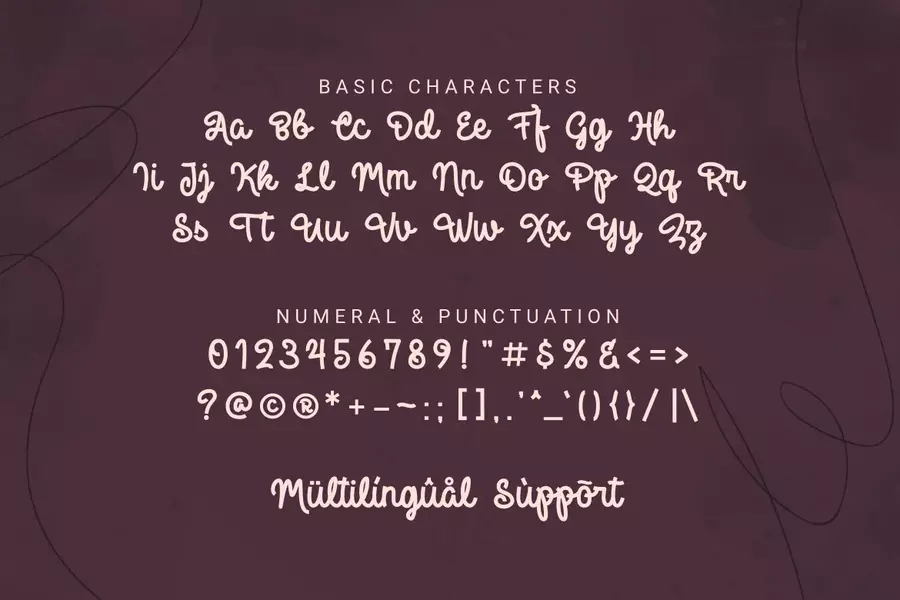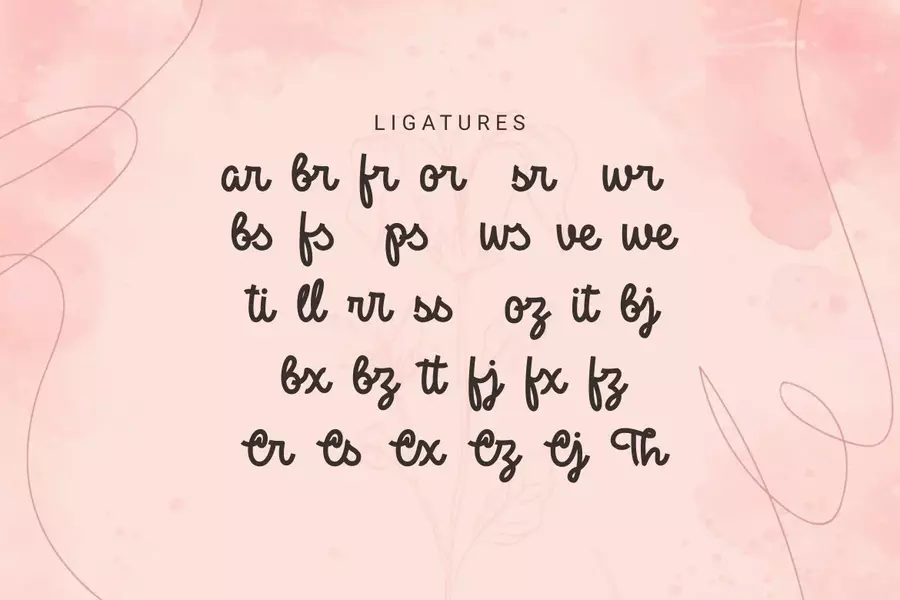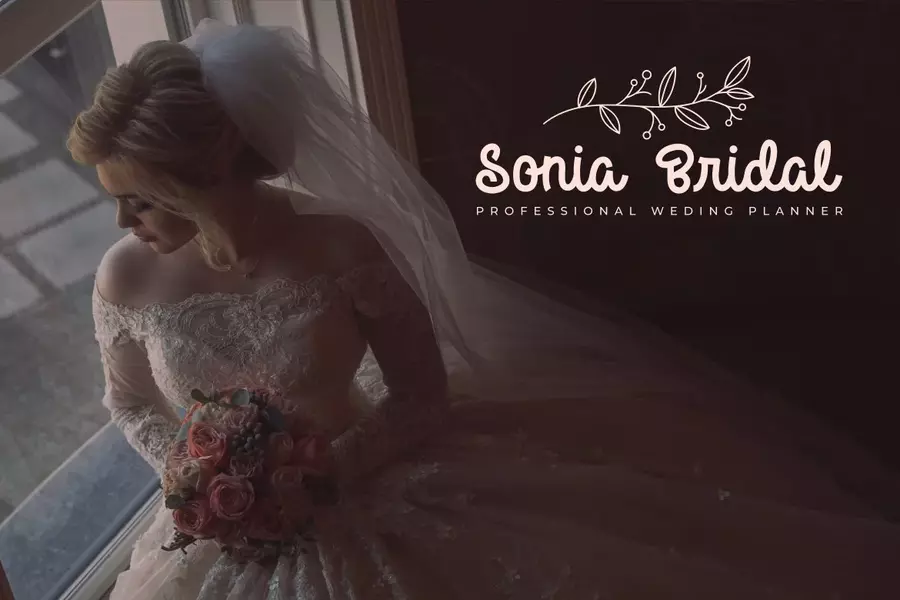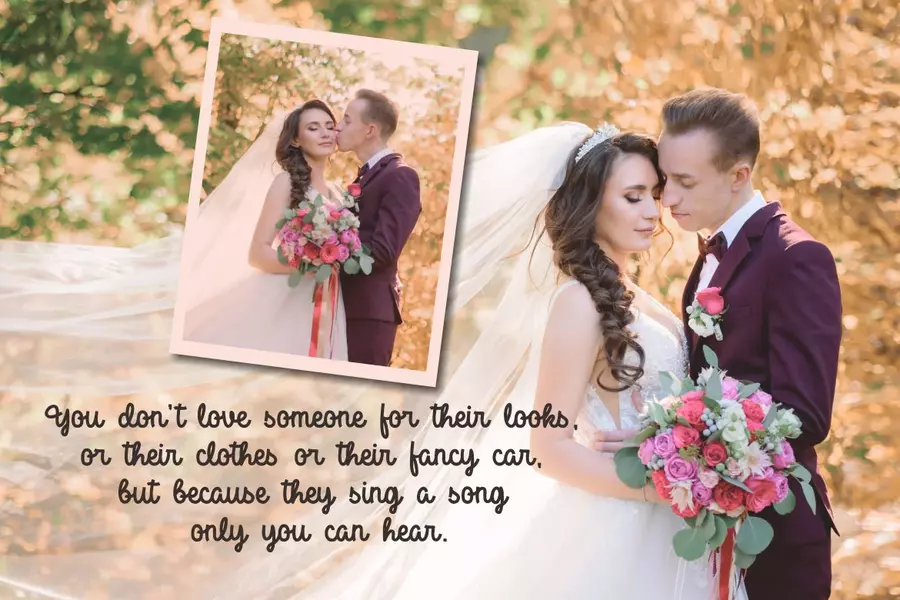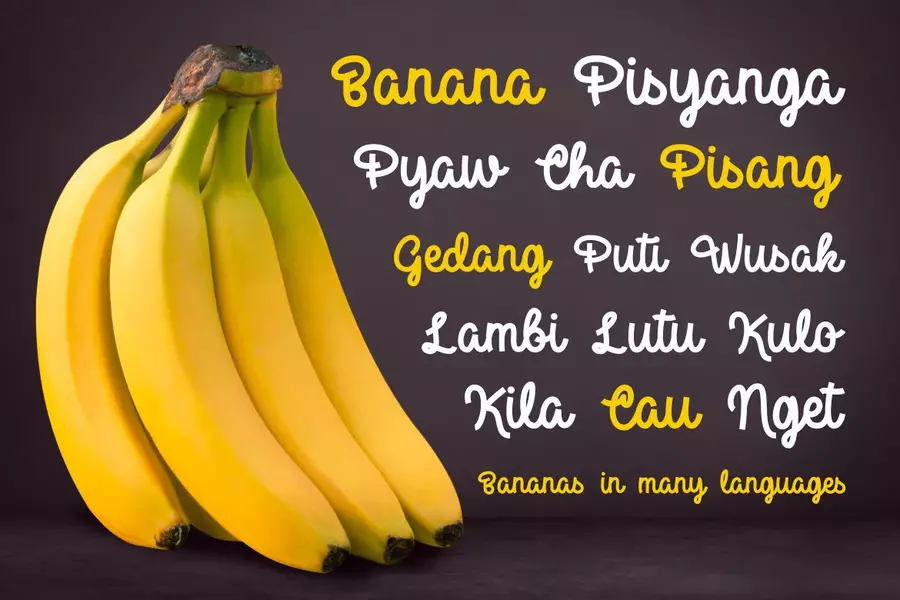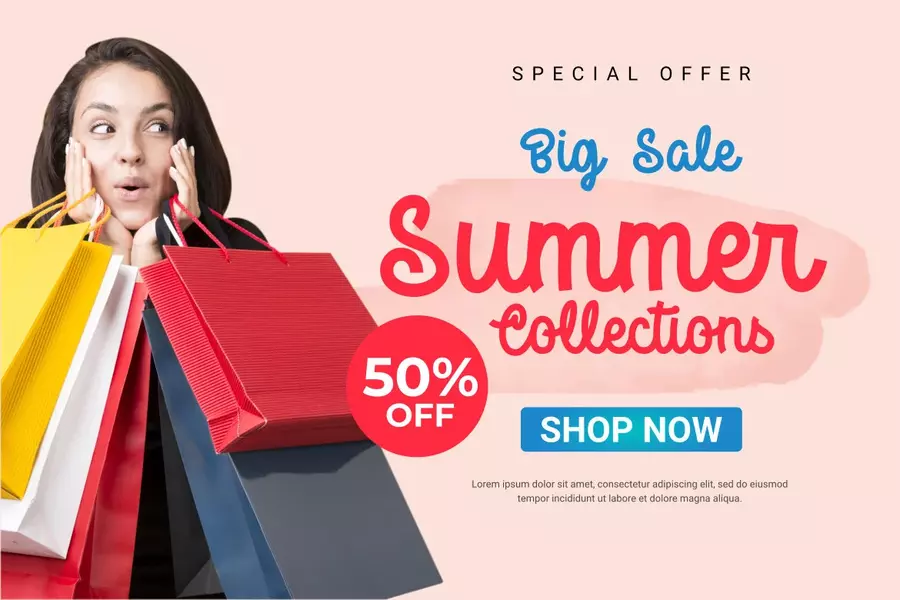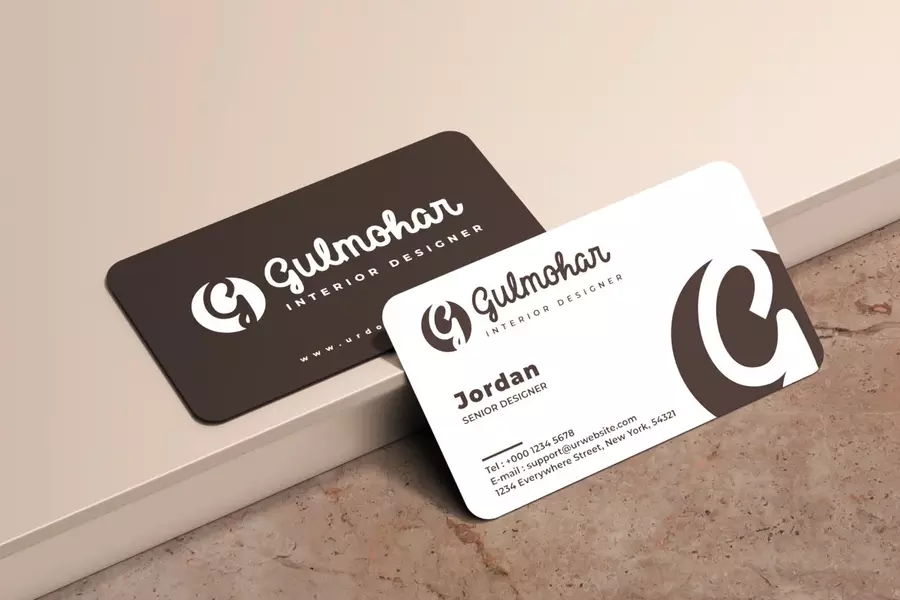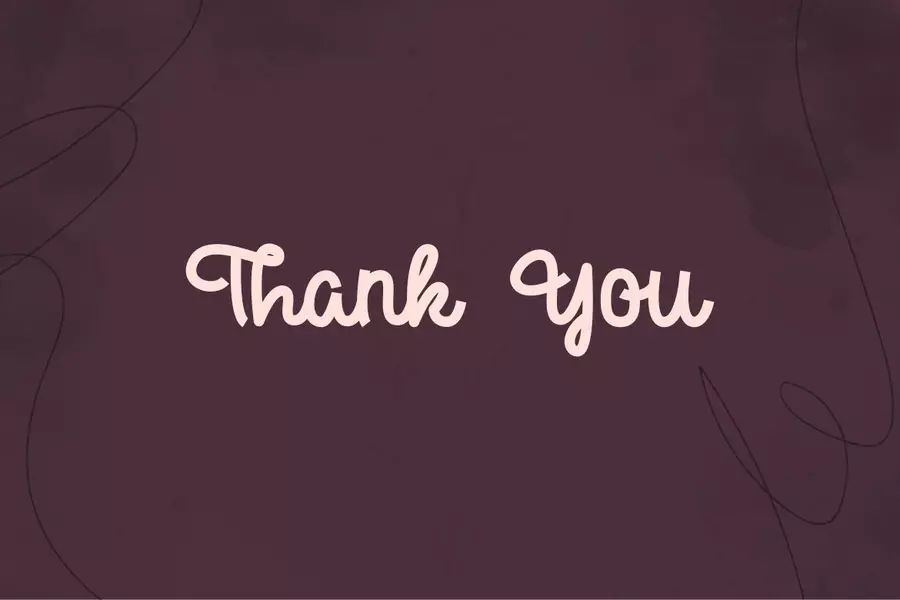
Pottery – A Beautiful Script Font
Pottery is a beautiful script font. This font is great for your next creative project such as logos, printed quotes, invitations, cards, product packaging, headers, Logotype, Letterhead, Poster, Apparel Design, Label, and etc. Pottery comes with uppercase, lowercase, numerals, punctuations, multilingual support .
This Font Support Language:
Afrikaans, Albanian, Asu, Basque, Bemba, Bena, Breton, Catalan, Chiga, Colognian, Cornish, Croatian, Czech, Danish, Dutch, Embu, English, Esperanto, Estonian, Faroese, Filipino, Finnish, French, Friulian, Galician, Ganda, German, Gusii, Hungarian, Inari Sami, Indonesian, Irish, Italian, Jola-Fonyi, Kabuverdianu, Kalaallisut, Kalenjin, Kamba, Kikuyu, Kinyarwanda, Latvian, Lithuanian, Lower Sorbian, Luo, Luxembourgish, Luyia, Machame, Makhuwa-Meetto, Makonde, Malagasy, Maltese, Manx, Meru, Morisyen, Northern Sami, North Ndebele, Norwegian Bokmål, Norwegian Nynorsk, Nyankole, Oromo, Polish, Portuguese, Quechua, Romansh, Rombo, Rundi, Rwa, Samburu, Sango, Sangu, Scottish Gaelic, Sena, Serbian, Shambala, Shona, Slovak, Soga, Somali, Spanish, Swahili, Swedish, Swiss German, Taita, Teso, Turkish, Upper Sorbian, Uzbek (Latin), Volapük, Vunjo, Walser, Zulu